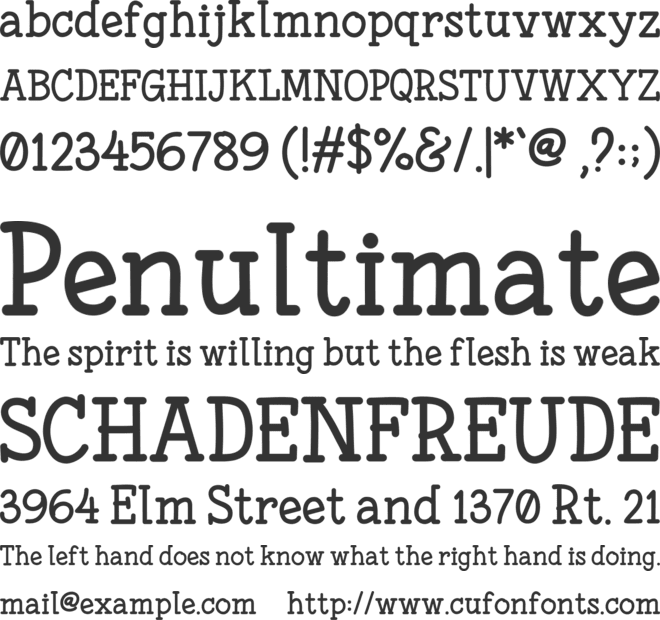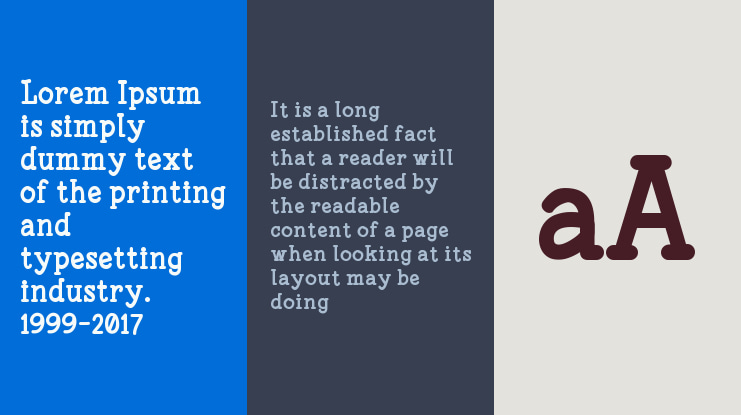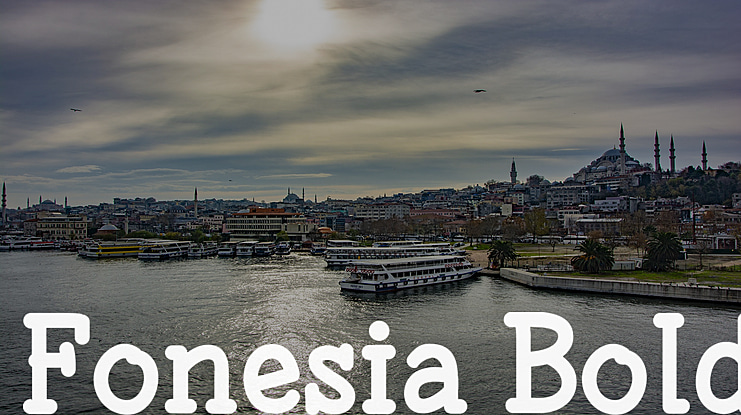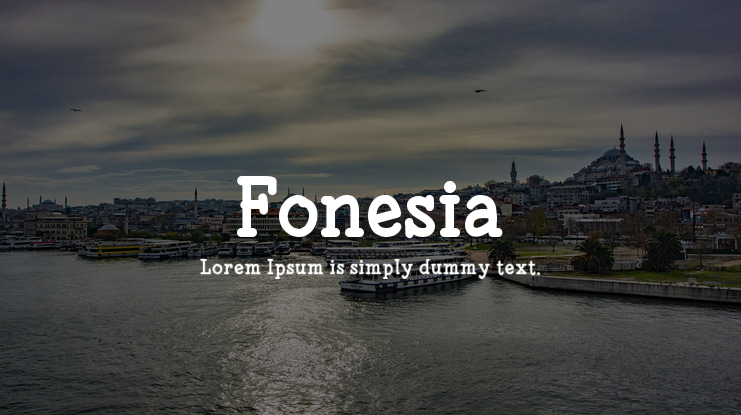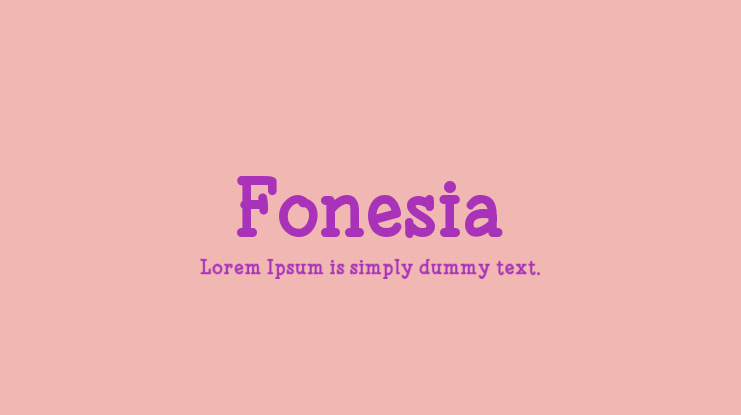
Fonesia Font Family
Fonesia was inspired by stroke of handwritten style. Available in three styles; light, regular and bold. Just donate for commercial purpose. Thanks.